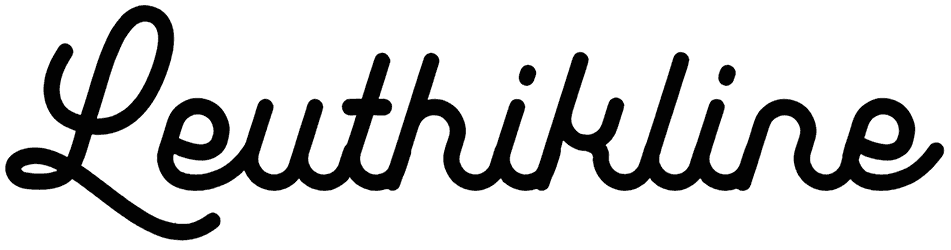
Leuthikline Font
There is a retro script font for your new graphic projects. What could be better than Leuthikline font to use and decorate any mood and theme via its artistic skills, and face?
Use it for a variety of tasks, from sewing projects to designing wedding cards. This 80s neon font with elegant tortuosity is considered to be a decorative font that is on the point of bringing your artwork to life. Don’t hesitate to grasp it!